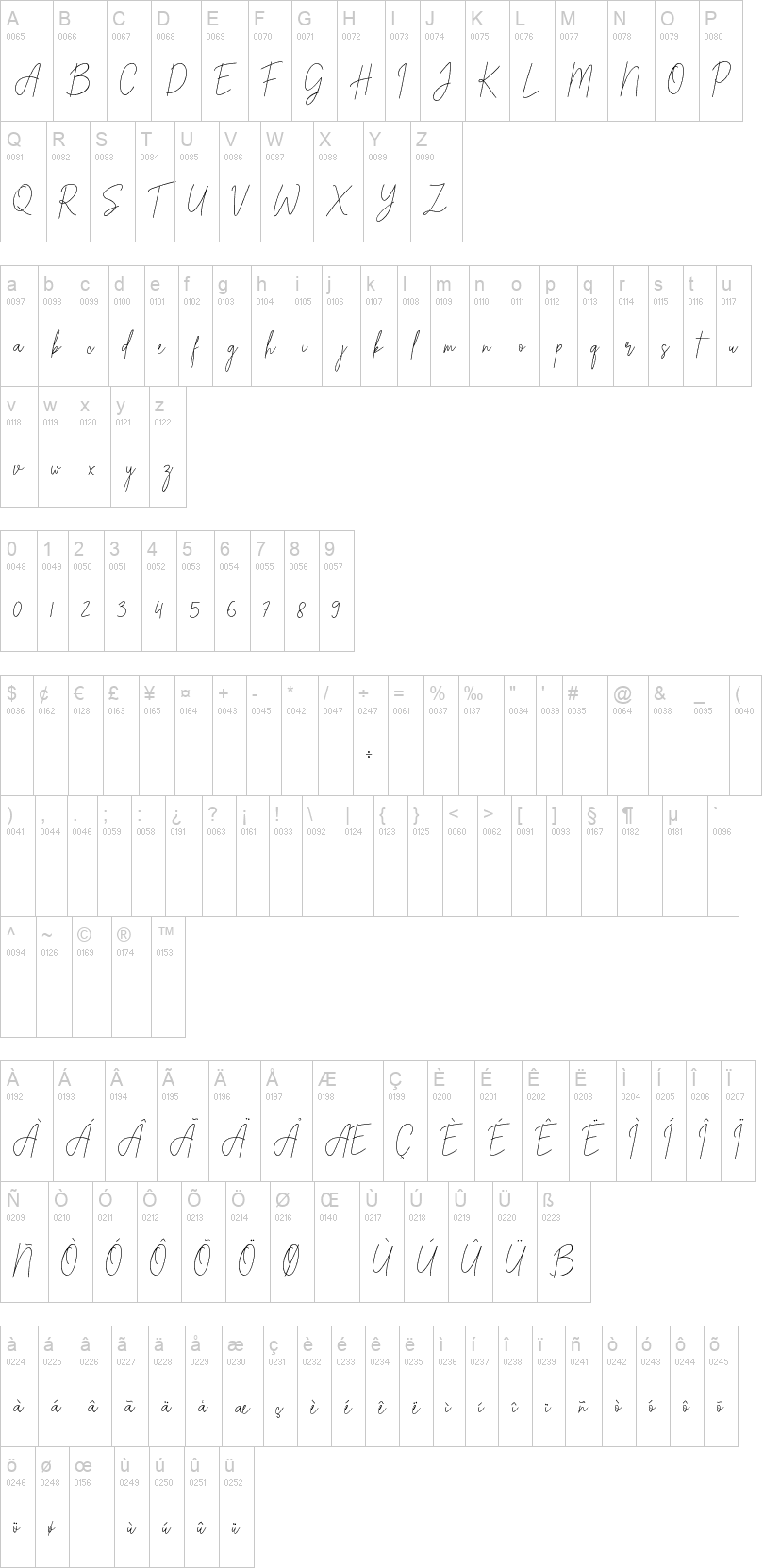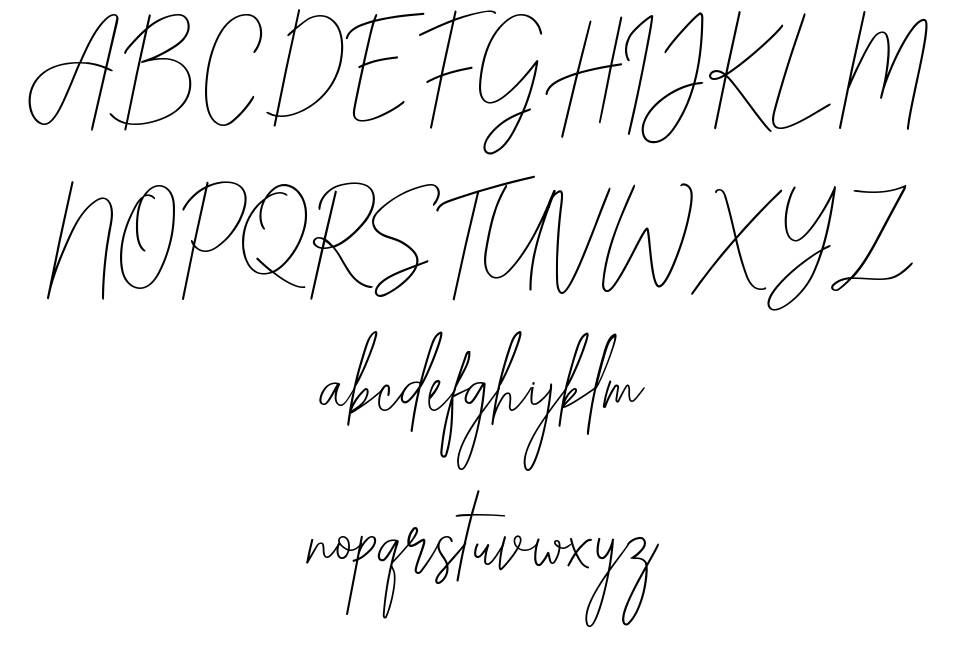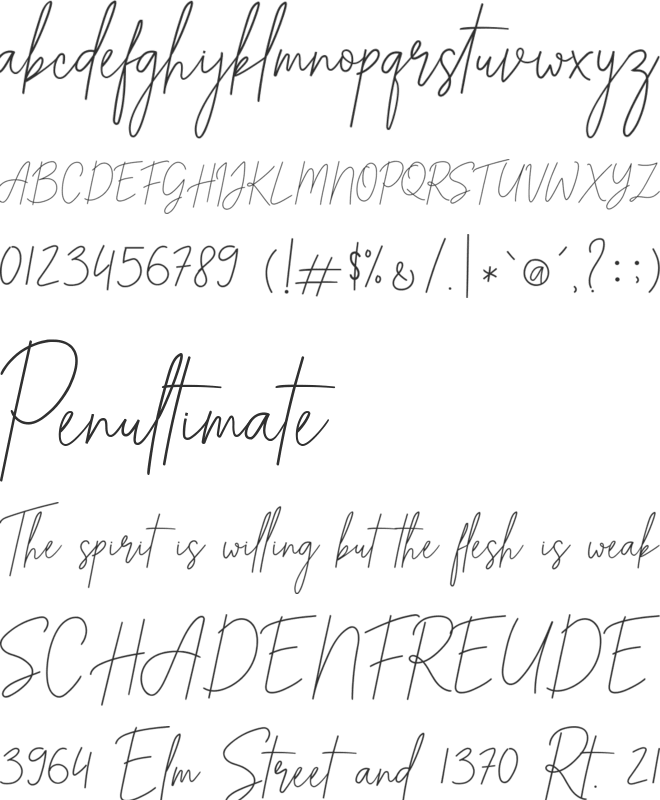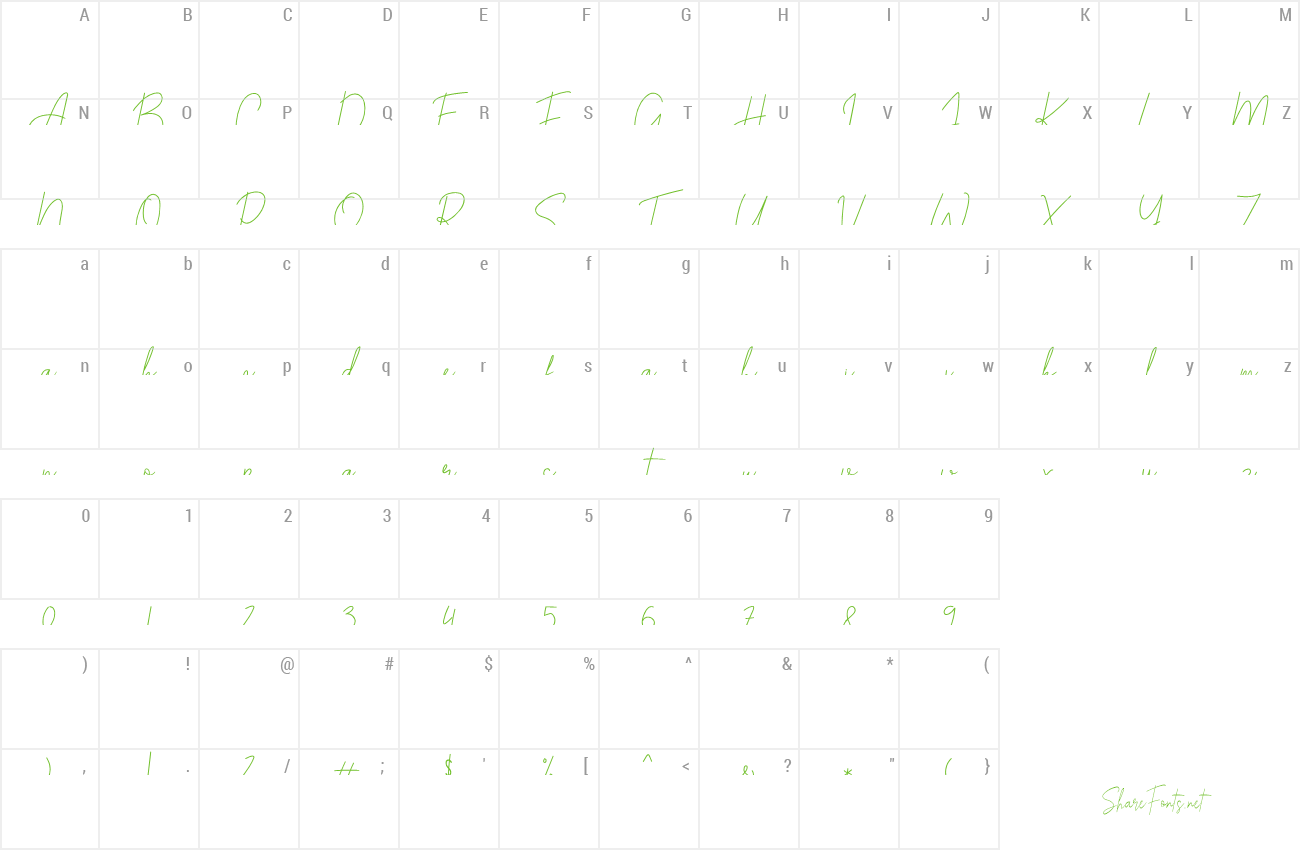
Alexander Lettering Font
Alexander Lettering Font - Web alexander lettering is a handwriting font that captures the wild essence of a quick signature. This font is only for personal use. No promotional or commercial use allowed.
Web Alexander Lettering Is A Handwriting Font That Captures The Wild Essence Of A Quick Signature.